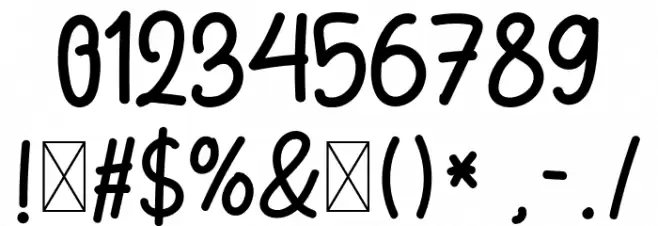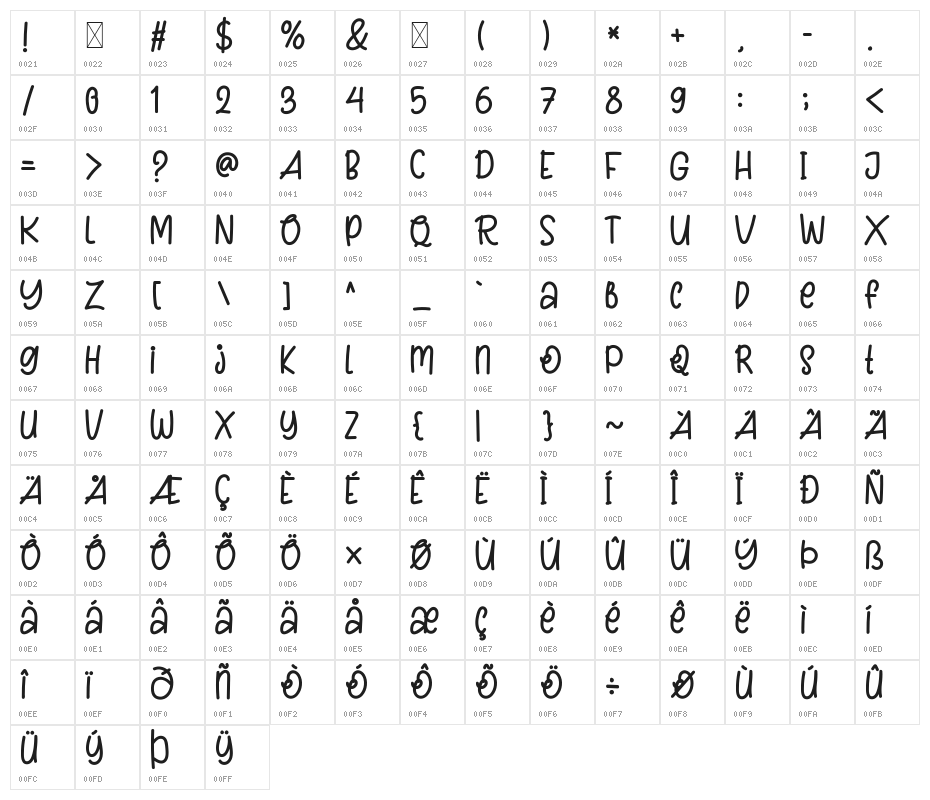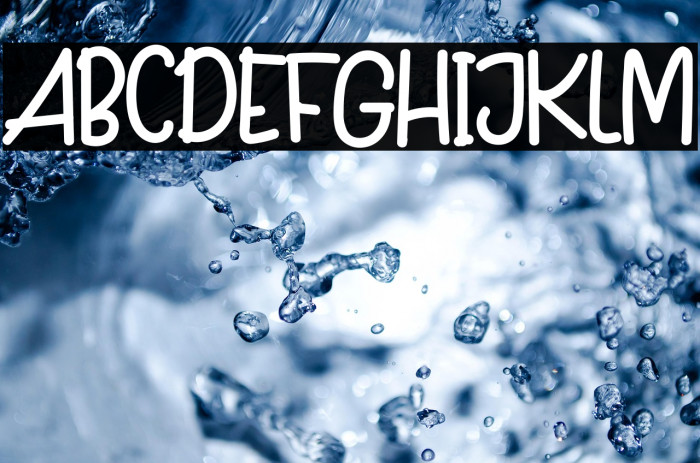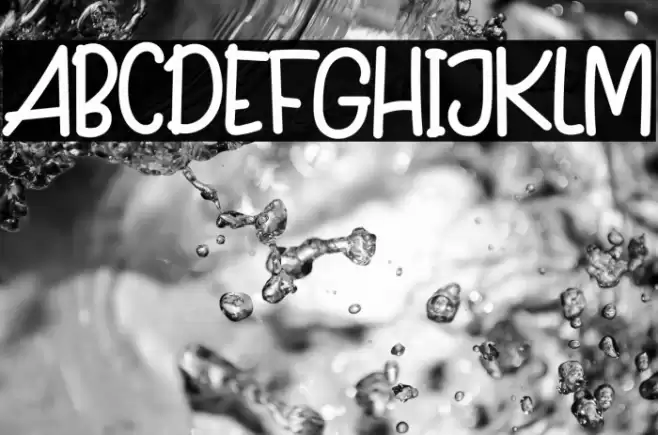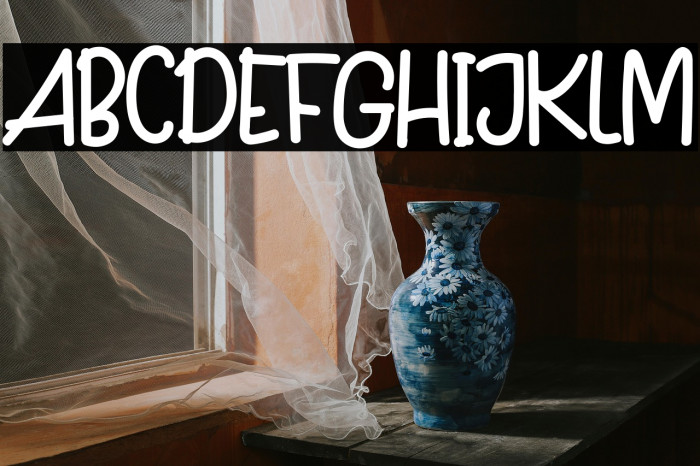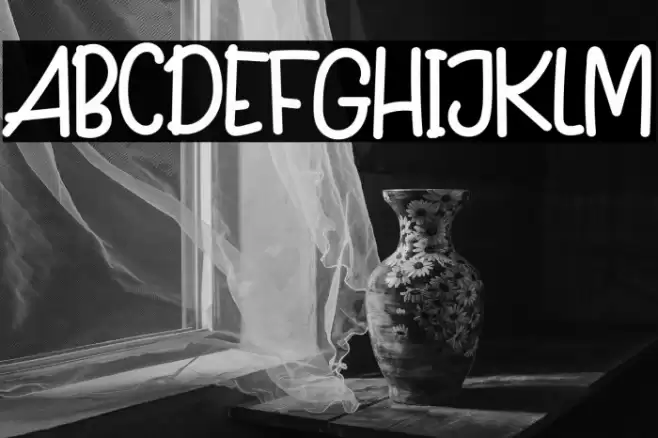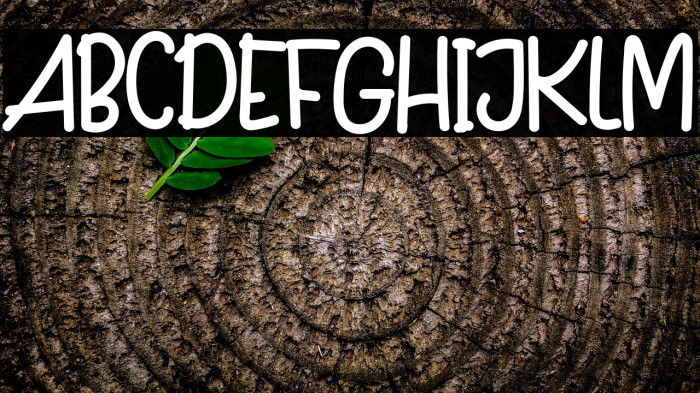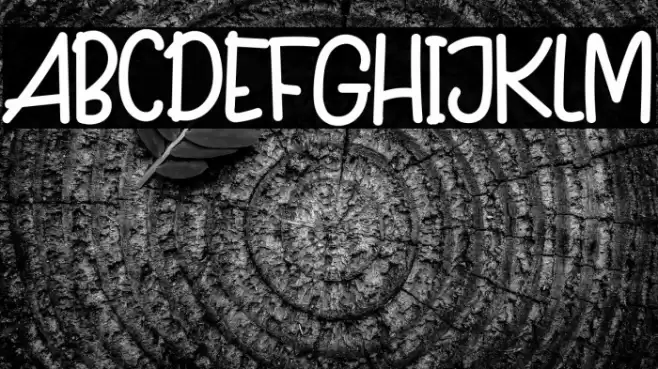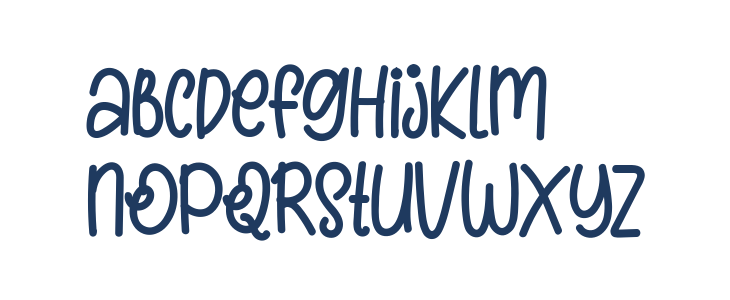
Brown Sugar Font
Brown Sugar Description
This font features a playful and casual handwritten style, characterized by its rounded and slightly irregular letterforms. The strokes are bold and consistent, giving it a friendly and approachable appearance. The uppercase and lowercase letters maintain a cohesive look, with a slight slant that adds to its informal charm. The numerals are clear and easy to read, matching the overall aesthetic. Special characters are included, maintaining the same whimsical style. This font is perfect for projects that require a personal touch, such as invitations, greeting cards, or playful branding.
| Proposed Projects | Ideal for invitations, greeting cards, playful branding, and casual designs. |